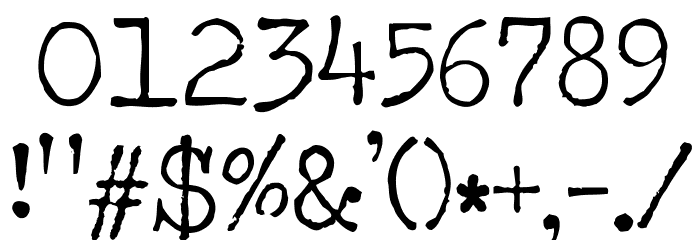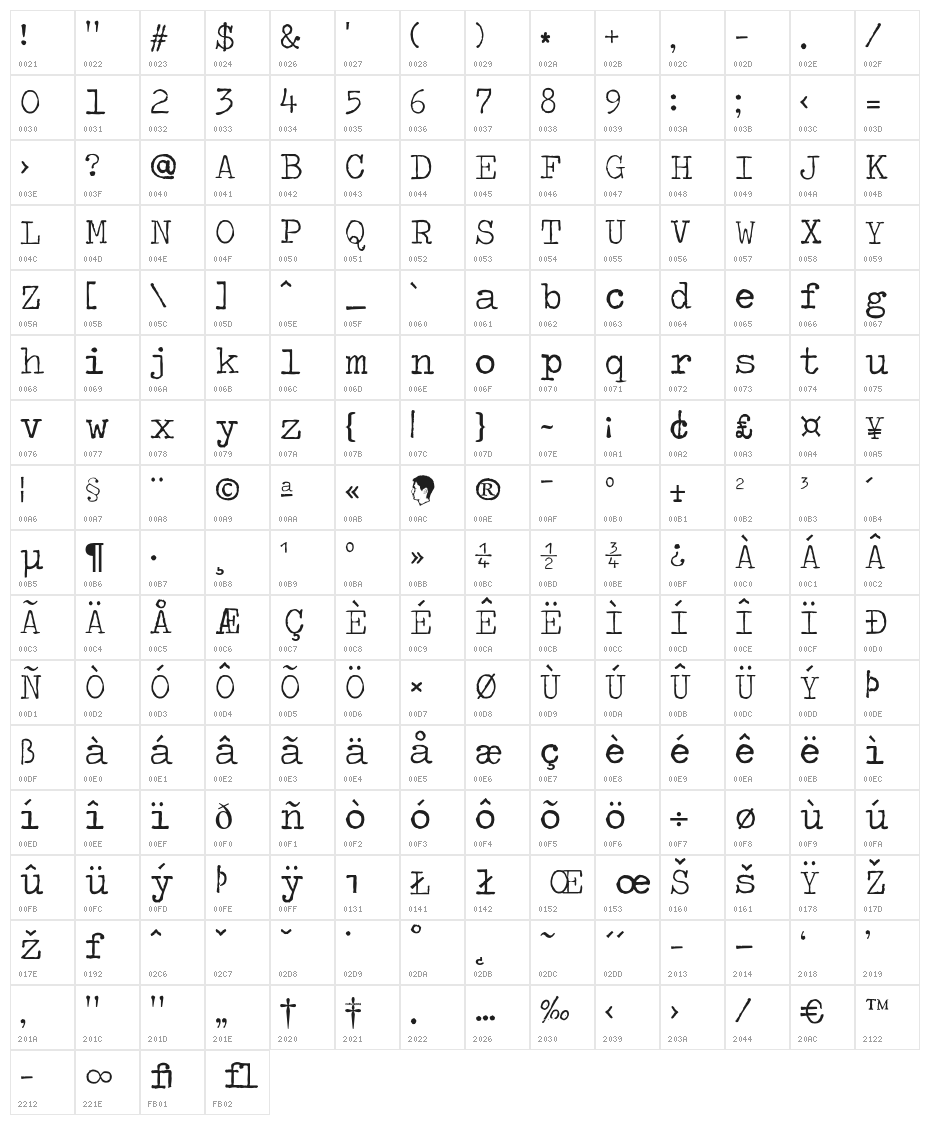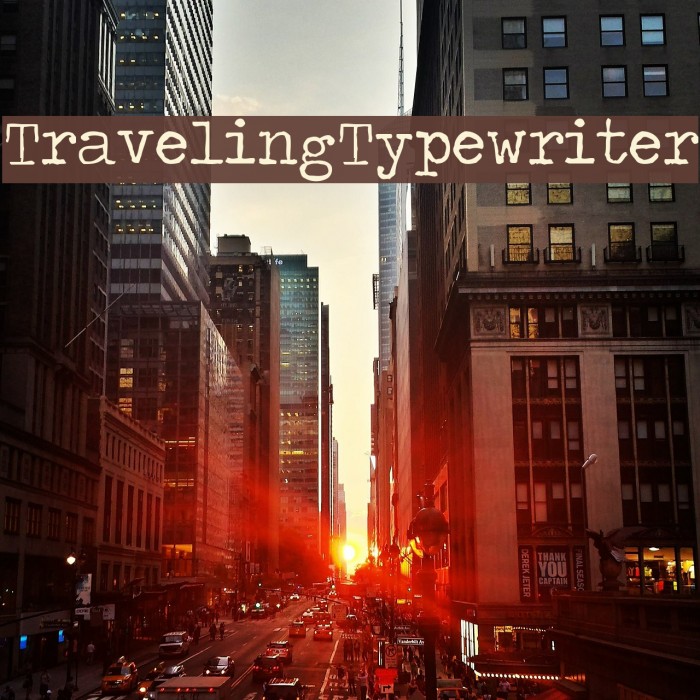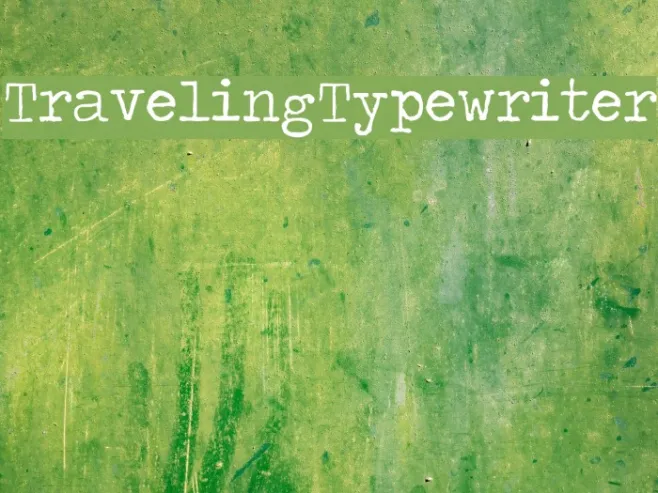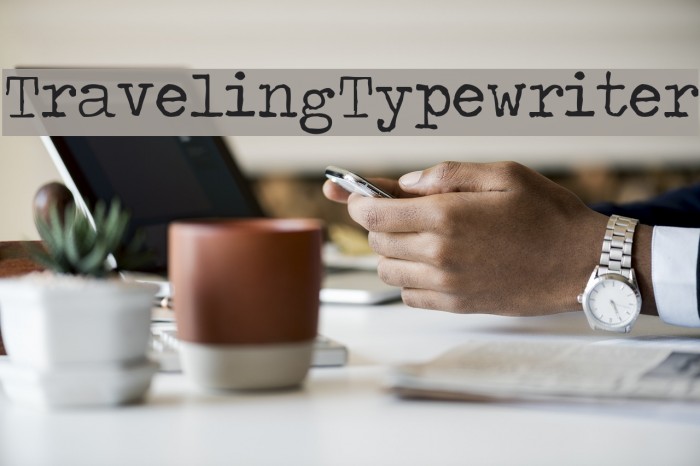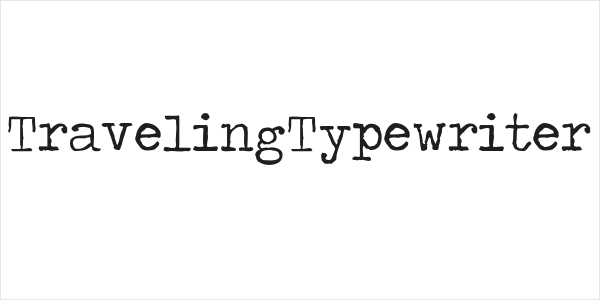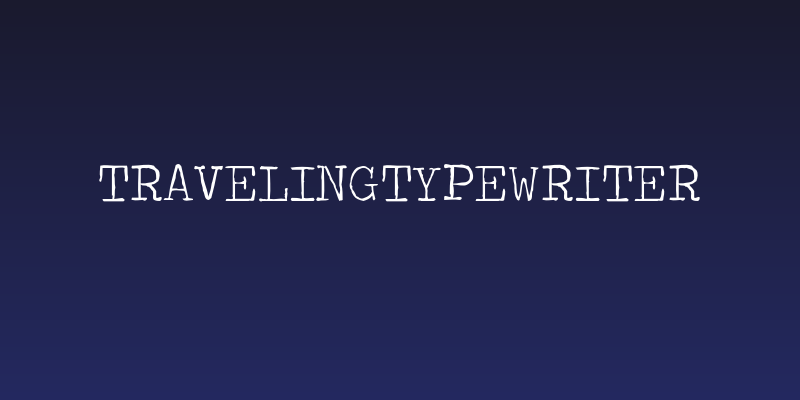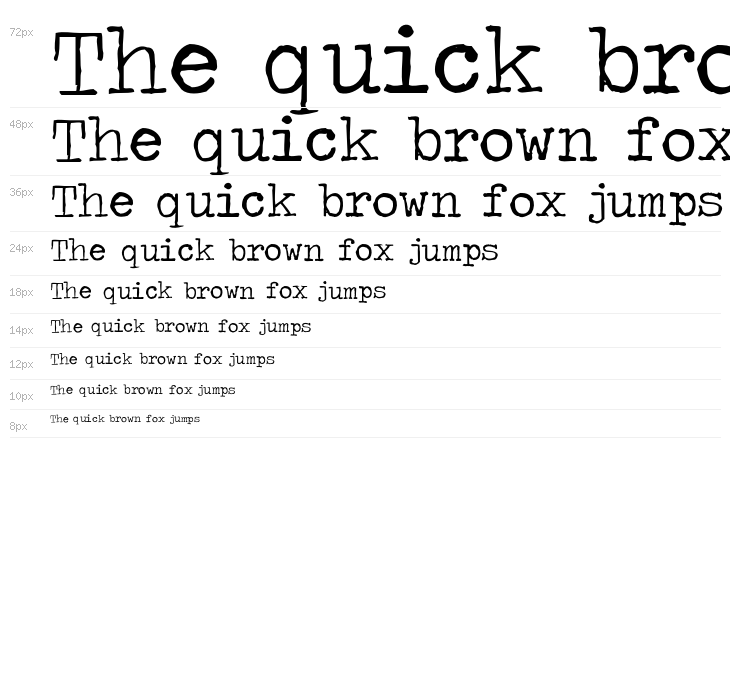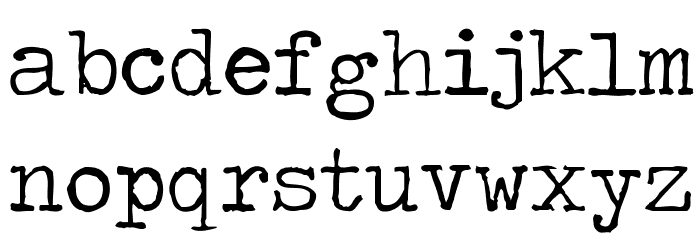
TravelingTypewriter Font
TravelingTypewriter Description
This typewriter-style font exudes a vintage charm reminiscent of old-school typing machines. The characters are slightly irregular, giving them a hand-crafted feel, which adds to their authenticity and appeal. The uppercase and lowercase letters maintain a consistent style, with rounded edges and a slightly distressed appearance, enhancing the retro aesthetic. The numerals and special characters follow the same design principles, ensuring uniformity across all glyphs. This font is perfect for projects that require a nostalgic or historical touch, such as retro-themed designs, vintage posters, or creative writing projects that aim to evoke a sense of the past.
Overall StyleVintage
Use CaseHeadlines, Logos, Decorative text
Proposed ProjectsIdeal for vintage posters, retro-themed designs, creative writing projects, and historical documents.